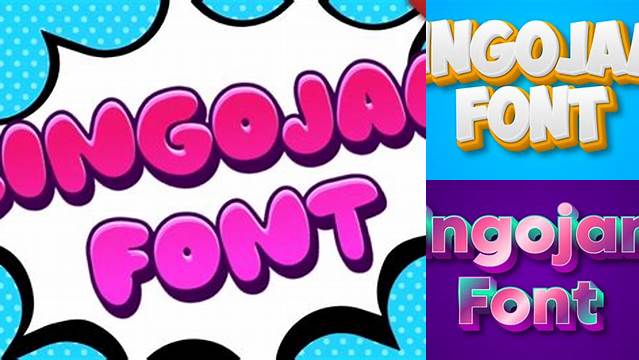
LingoJam Font Changer: Copy & Paste Stylish Fonts Online
Hey guys, let's dive into the awesome world of fonts! Have you ever wanted to spice up your social media posts, create cool bios, or just make your text stand out? Well, look no further! This article is all about LingoJam's font changer – a super easy-to-use online tool that lets you copy and paste fonts like a pro. We're talking about transforming your plain text into something truly eye-catching. Imagine your text looking like it's straight out of a fancy design magazine. Pretty cool, right? And the best part? You don't need to be a tech wizard or a design guru to get started. Seriously, if you can copy and paste, you can use LingoJam's font changer. So, grab your keyboard, and let's get started. We'll explore how this tool works, the different font styles available, and how you can use them to level up your online presence. Get ready to turn heads with your newfound font mastery!
What is LingoJam Font Changer? Your Gateway to Text Transformation
Okay, so what exactly is LingoJam's font changer, and why should you care? In a nutshell, it's a free online tool designed to convert your regular text into a variety of stylish and unique fonts. Think of it as a text transformer. You type your words, and LingoJam works its magic, instantly generating text in different fonts. You can then copy and paste this fancy text wherever you want – your social media profiles, Instagram captions, Twitter posts, Facebook updates, and even your email signatures. This is how you take your text from boring to brilliant with a simple click. The tool is incredibly user-friendly. You don't need to download any software or have any technical knowledge. It's all done online, making it accessible to anyone with an internet connection. This means you can jazz up your text on the go, whether you're on your phone, tablet, or computer. The possibilities are endless. This tool is about self-expression. It allows you to add your personality and flair to your online content. Whether you're aiming for a playful, serious, or artistic vibe, LingoJam has a font style that will match your needs. It's all about having fun and making your words stand out from the crowd. The core function of LingoJam is remarkably simple. You input your text into the provided box. The tool then generates an array of different font styles. You can easily scroll through the options, select the one you like best, and copy and paste it wherever you desire. The conversion process is instant. There are no delays. The tool's primary strength is its ease of use, which makes it perfect for individuals who are not design experts but still want to produce visually appealing text. You can test it out on many platforms. These platforms are Instagram, Twitter, and Facebook. You can improve your visibility and create content that resonates with your audience.
How to Use LingoJam Font Changer: A Step-by-Step Guide
Alright, let's get down to the nitty-gritty. Using LingoJam's font changer is as easy as pie. Trust me; you'll be a font master in no time. First things first, you'll need to head over to the LingoJam website. Just search for "LingoJam font changer" on Google, and you'll find it right away. Once you're there, you'll see a text input box. This is where the magic begins. Type or paste your text into this box. As soon as you start typing, LingoJam will automatically generate your text in different font styles below. You don't have to click any buttons or wait for anything. The tool works in real-time. Now comes the fun part: exploring the different font options. Scroll through the various styles and see which ones catch your eye. LingoJam usually provides a wide range of fonts, from classic and elegant to quirky and bold. Take your time and find the perfect font for your needs. Once you've found a font you like, simply click on the text to copy it. The text is now ready to be pasted. Go to the platform where you want to use your fancy text (Instagram, Twitter, Facebook, etc.) and paste it into your post, bio, or caption. That's it! You've successfully transformed your text. Let's talk about some tips and tricks to get the most out of LingoJam. Experiment with different font combinations. Try using a fancy font for your headings and a simpler font for your body text to create a balanced look. Keep the fonts in mind so you can see the readability. Also, be mindful of the platform you're using. Some fonts might not display correctly on all platforms. So, it's always a good idea to double-check how your text looks before posting. LingoJam is a powerful tool. You should use it to express your creativity, and have fun with it! Don't be afraid to try different styles and see what works best for you. Be creative and let your personality shine through your font choices.
Font Styles Galore: Discovering the Variety on LingoJam
Now, let's talk about the real stars of the show: the fonts! LingoJam's font changer offers a diverse selection of font styles. This will let you to get the right vibe for any occasion. Whether you're looking for something elegant, playful, or edgy, you're sure to find a font that suits your taste. Let's explore some of the popular font categories you can find on LingoJam. First up, we have the fancy fonts. These fonts are all about style and flair. They often feature elaborate designs, decorative elements, and unique letterforms. They're perfect for making your text stand out. Consider using them for headlines, quotes, or anything else you want to emphasize. Next, we have the bold fonts. These fonts are designed to grab attention with thick lines and a strong presence. They're ideal for making your text pop and ensuring it's easily readable, even from a distance. Then there are the cursive fonts. Cursive fonts mimic handwriting, giving your text a personal and elegant touch. They're perfect for creating a sense of intimacy and sophistication. You should use these fonts for invitations, quotes, or anything else where you want to convey a personal message. There are bubble fonts. These fonts are all about fun and playfulness. They often feature rounded letterforms and a friendly appearance. They're great for kids' content, social media posts, or anything where you want to create a lighthearted atmosphere. Let's talk about gothic fonts. Gothic fonts are all about mystery and edginess. They often feature sharp angles and a dark, imposing appearance. They are perfect for creating a sense of drama or intrigue. You can find many other styles on LingoJam. These include the classic fonts, the retro fonts, and the monospace fonts. It's a good idea to explore different styles. Experiment with different combinations to find what looks best for your needs.
LingoJam Font Changer: Beyond Aesthetics - Practical Applications
So, you've got your fancy fonts. But what can you actually do with them? LingoJam's font changer is more than just a way to make your text look pretty. It also opens up a world of practical applications. Let's look at some of the ways you can use this tool to enhance your online presence. Firstly, we have social media. Using unique fonts can make your social media profiles stand out. Try using a fancy font for your Instagram bio or a bold font for your Twitter posts. This can help you grab attention and make a memorable first impression. In the second place, we have content creation. LingoJam can be a valuable tool for creating engaging content. Use different fonts to create eye-catching headlines, subheadings, and captions. This can help you make your content more readable and visually appealing. Let's talk about branding. If you're a business owner or content creator, you can use custom fonts to build your brand identity. This can help you create a cohesive and recognizable look across all your online platforms. Another area is personalization. LingoJam allows you to personalize your online communication. This will make your messages feel more special and unique. Try using fancy fonts to create customized greetings, birthday messages, or thank-you notes. Let's consider the impact on your overall experience. The tool is an easy way to experiment with different font styles. You don't have to be a design expert to create visually appealing text. This accessibility makes LingoJam a great tool for anyone who wants to add some personality to their online content. Furthermore, it can be a way of self-expression. Choosing different fonts to match your mood or personality helps make your online presence. You can create text that reflects your personality and creativity. This can help you connect with your audience and leave a lasting impression. The tool is a fun and versatile tool. It gives you many opportunities to enhance your online presence. Try it and have fun with it!
Tips and Tricks for Mastering LingoJam Font Changer
Alright, you're ready to become a LingoJam font changer master. To make sure you're getting the most out of this tool, here are some tips and tricks to elevate your font game. First off, know your platform. Not all fonts are created equal. Some platforms might not support every font style. So, it's always a good idea to test your fancy text on the platform you plan to use it on. Double-check to make sure your chosen font displays correctly. Then, experiment with combinations. Don't be afraid to mix and match different font styles. Use a fancy font for headings and a simpler font for body text to create a balanced look. This can make your text more readable and visually appealing. Consider the readability. While it's tempting to use the fanciest fonts, keep readability in mind. Ensure your text is easy to read, especially if you're using it in a longer piece of content. Choose fonts that are legible and suitable for your target audience. Also, use it sparingly. While fancy fonts can make your text pop, avoid overusing them. Too many fancy fonts can be overwhelming and detract from your message. Use them strategically to highlight important elements or add a touch of personality. Let's talk about copy and paste. LingoJam is all about copying and pasting. Make sure you know how to copy and paste text on your device. This might sound simple, but it's the foundation of using the tool effectively. Also, keep it fresh. LingoJam offers a range of font styles. So, don't be afraid to try different fonts and experiment with new styles. This will help you keep your content looking fresh and engaging. The tool is about creativity and exploration. Have fun with it. Express your personality and make your text stand out. Don't be afraid to break the rules and try new things. It's all about having fun and letting your creativity shine.
Troubleshooting Common Issues with LingoJam Font Changer
Even though LingoJam's font changer is generally user-friendly, you might encounter some issues. Don't worry, it's nothing you can't handle. Here are some common problems and how to solve them. One issue is font compatibility. As mentioned earlier, not all platforms support every font style. If your fancy text doesn't display correctly on a certain platform, it's likely due to font compatibility issues. What can you do? Try using a different font style or a simpler font that is more widely supported. Another is copy-pasting problems. Sometimes, you might have trouble copy-pasting the text from LingoJam to another platform. The solution is to double-check your copy-pasting process. Make sure you've copied the text correctly. If the issue persists, try pasting the text into a plain text editor first and then copy and paste it again. There may be some character limitations. Some platforms might have character limits, which can be an issue if you're using a fancy font that takes up more space than a regular font. You can try using a shorter version of your text or choose a font that uses fewer characters. Let's look at technical glitches. Although rare, you might encounter some technical glitches. In this situation, you should refresh the page. Clear your browser cache, or try using a different browser. If the problem persists, contact LingoJam's support team for assistance. Keep the platform limitations in mind. Each platform has its own set of rules. Some platforms might restrict the use of certain font styles or characters. Ensure that you're following the platform's guidelines and terms of service. Consider also user error. Sometimes, the problem might be user error. Double-check that you're using the tool correctly. If you're still having trouble, review the instructions and tips provided in this article. The tool should offer a smooth experience. If you face any problems, don't hesitate to seek help. The tool has a solution to these common issues.
Conclusion: Unleash Your Text's Potential with LingoJam
So there you have it, guys! LingoJam's font changer is a fantastic tool that can transform your text from ordinary to extraordinary. It's easy to use, offers a wide variety of font styles, and opens up a world of possibilities for enhancing your online presence. Whether you're looking to spice up your social media profiles, create eye-catching content, or simply add some personality to your text, LingoJam has you covered. Remember to experiment with different font styles, keep readability in mind, and have fun. Don't be afraid to get creative and let your personality shine through your font choices. Go forth and conquer the world of fonts! LingoJam is a game-changer for anyone who wants to make their text stand out. So, start exploring the tool. Experiment with different fonts, and discover the power of text transformation. Your online presence will never be the same again. Happy fonting!